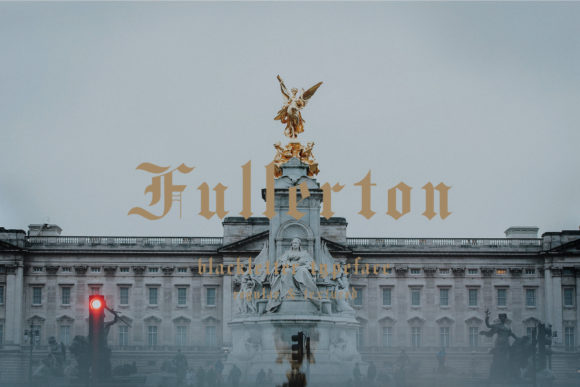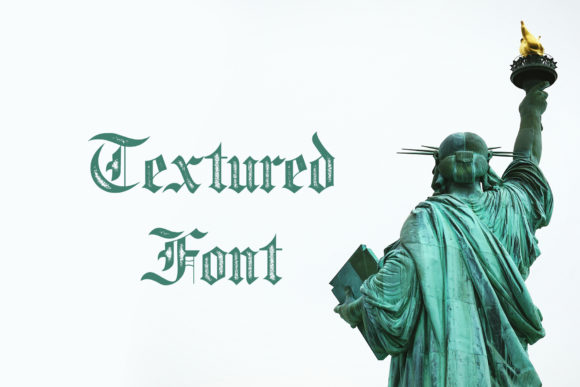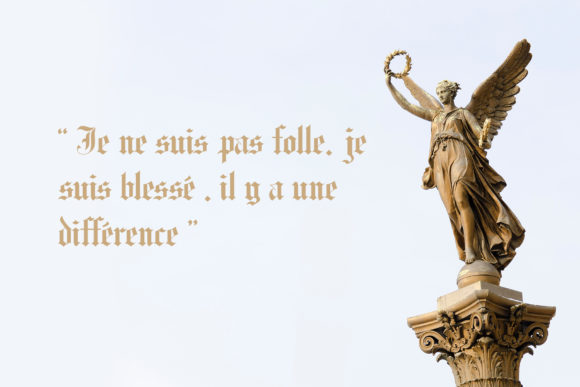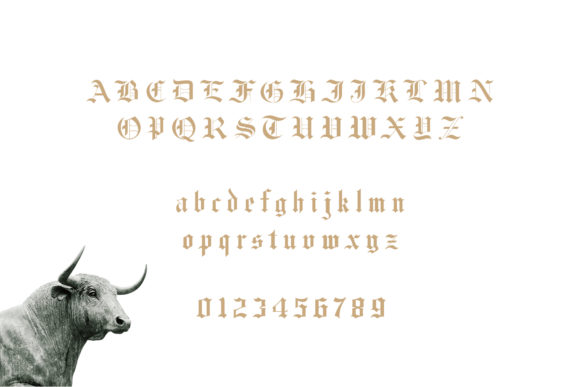
Fullerton Font: Unique Blackletter for Bold Logo Design & Headlines
About the Fullerton Font
The Fullerton Font offers a perfect balance of form and function for your design needs. The Fullerton is a striking blackletter font. It was inspired by the sub text of books. It’s unique style is perfect for logos, posters, magazines, books, and every other design which needs to stand out.
Fullerton excels in display applications such as headlines, logos, and short impactful text blocks within posters or packaging design. Its strong character makes it unsuitable for body copy or UI elements where readability is paramount; long stretches of Fullerton can strain the eye.
Its bold, slightly rebellious personality is ideal for brands projecting confidence and a touch of vintage flair—think craft breweries, independent publishers, or high-end clothing lines. Consider pairing it with a clean sans-serif like Montserrat for contrast and improved readability in supporting text, or a classic serif like Garamond for a more traditional, sophisticated feel.
For a more modern edge, a geometric sans-serif like Futura would create a striking juxtaposition. Avoid pairing Fullerton with other highly decorative or ornate fonts, as this would create visual clutter and diminish its impact.
Fullerton Font Usage Examples
Fullerton Font Example